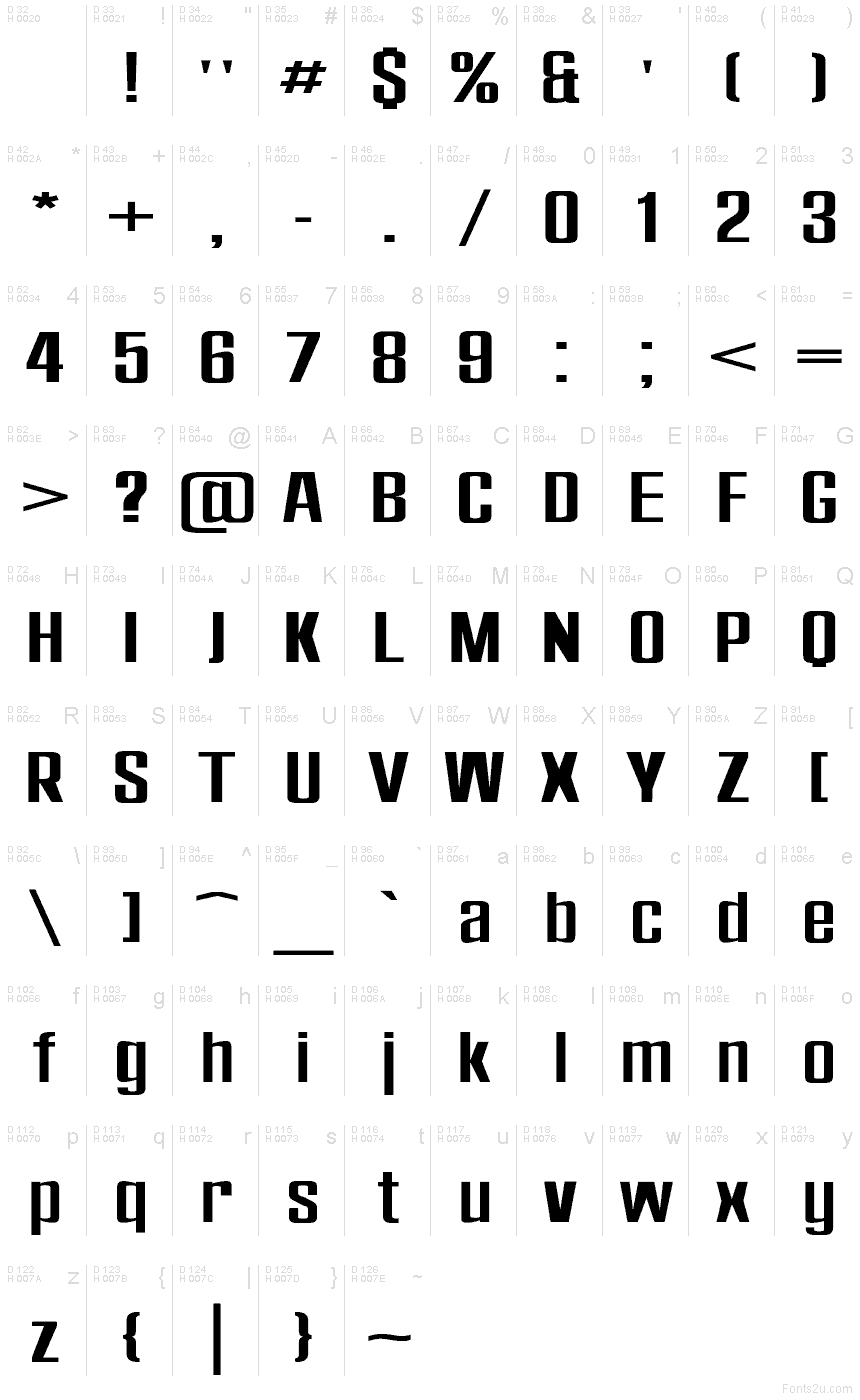
Extended
Extended font by the designer is a free retro condensed font. Tight spacing, tall forms, and crisp verticals give it billboard-level punch without eating horizontal space—great when headlines have to fit narrow columns or small thumbnails. The strokes feel sturdy and slightly industrial, with just enough curve to keep it friendly rather than stiff.
Using Extended, you can squeeze big impact into posters, event flyers, product packaging, social thumbnails, banners, and magazine cover lines. It shines on bold, short words and stacked layouts, and works beautifully for retro tech or arcade vibes. Pair this free font with a simple grotesk or geometric sans for body copy; add a touch of tracking at smaller sizes to keep it breathing.